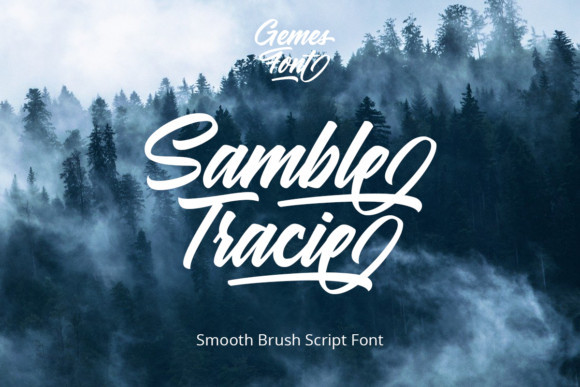
Samble Tracie Font
Samble Tracie is a smooth handwritten font, nicely created with the help of a brush pen. With its balanced calligraphy, Samble Tracie will look outstanding in any context, whether it’s being used on busy backgrounds or as a standalone headline!